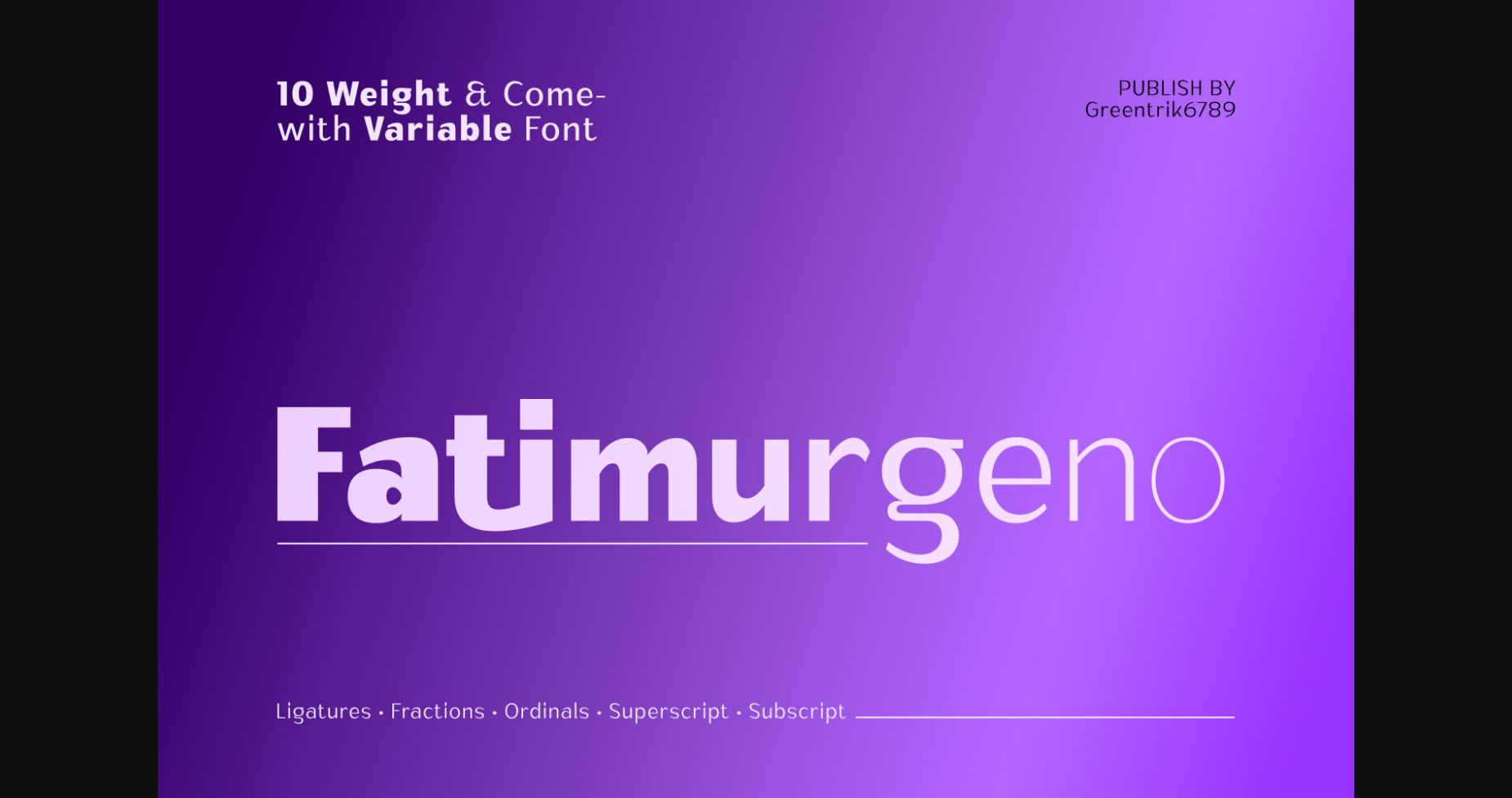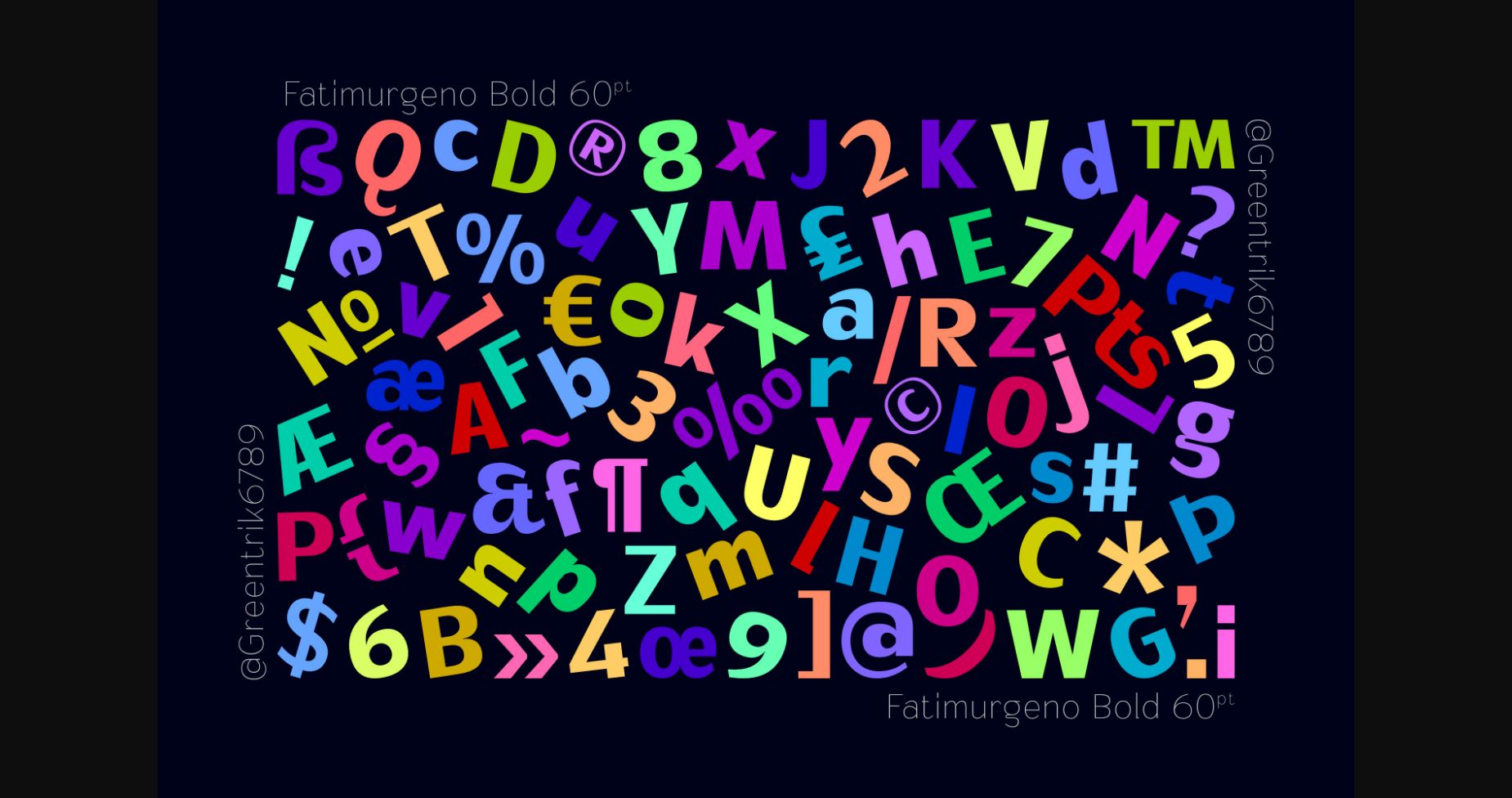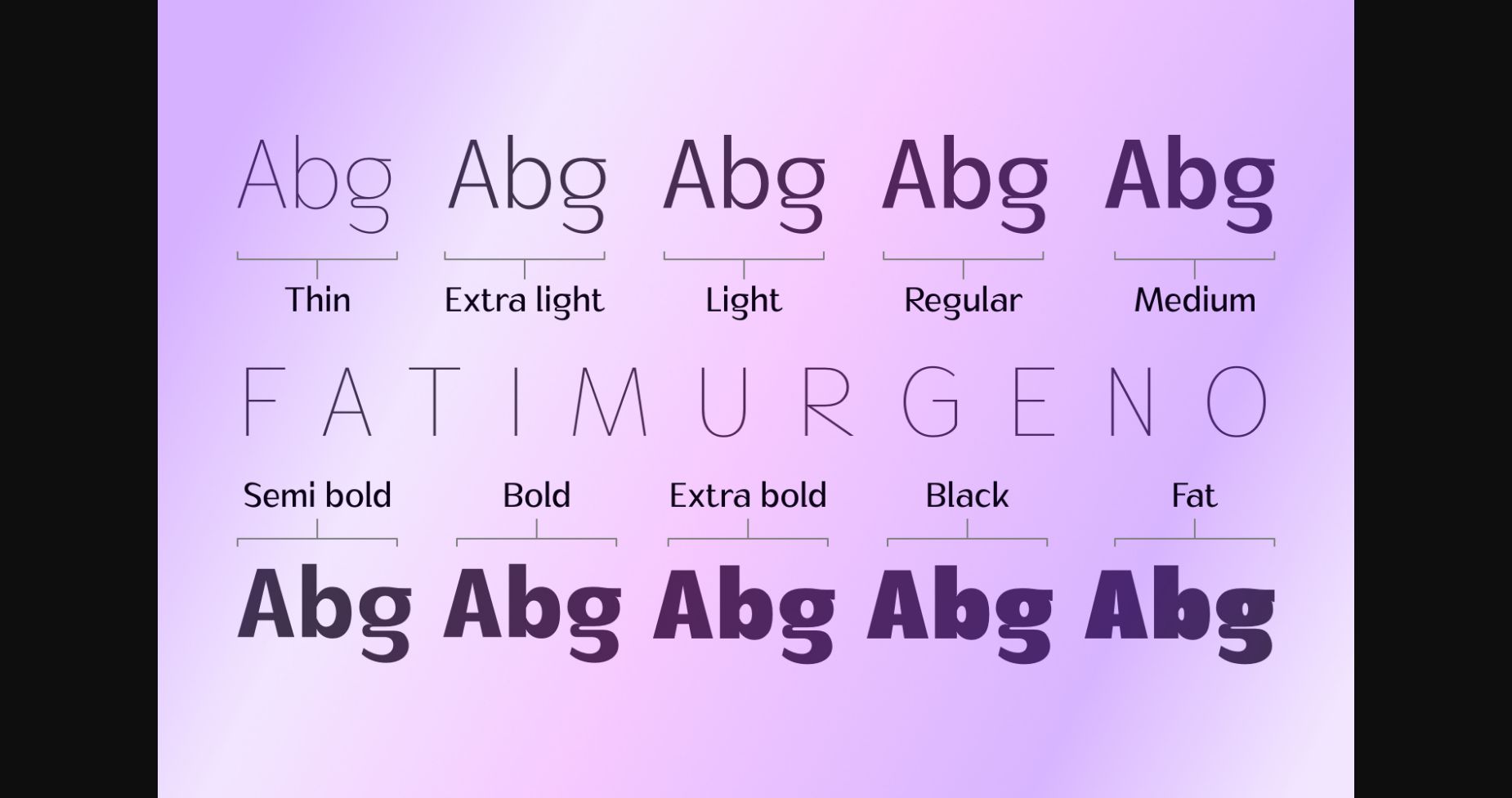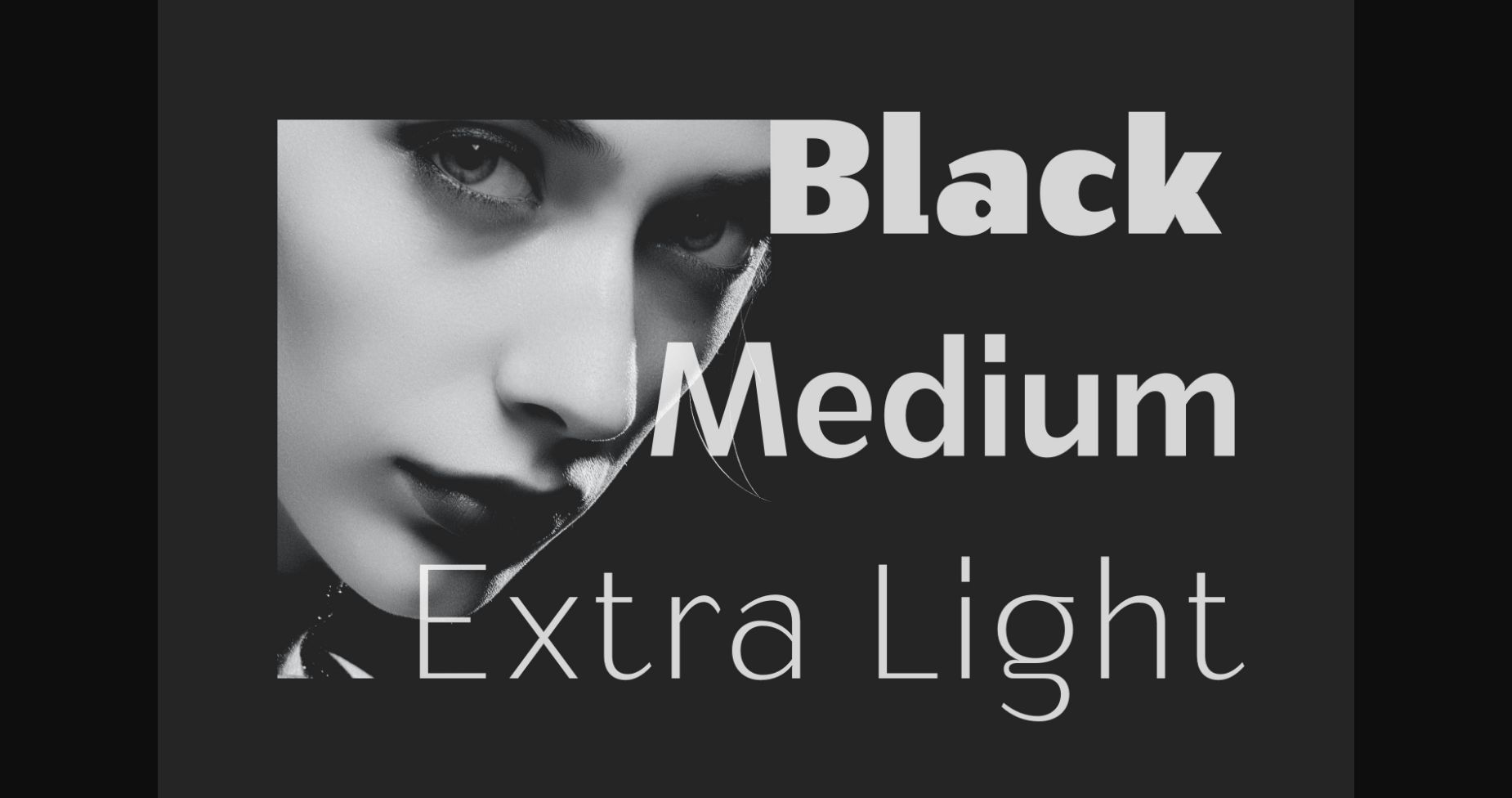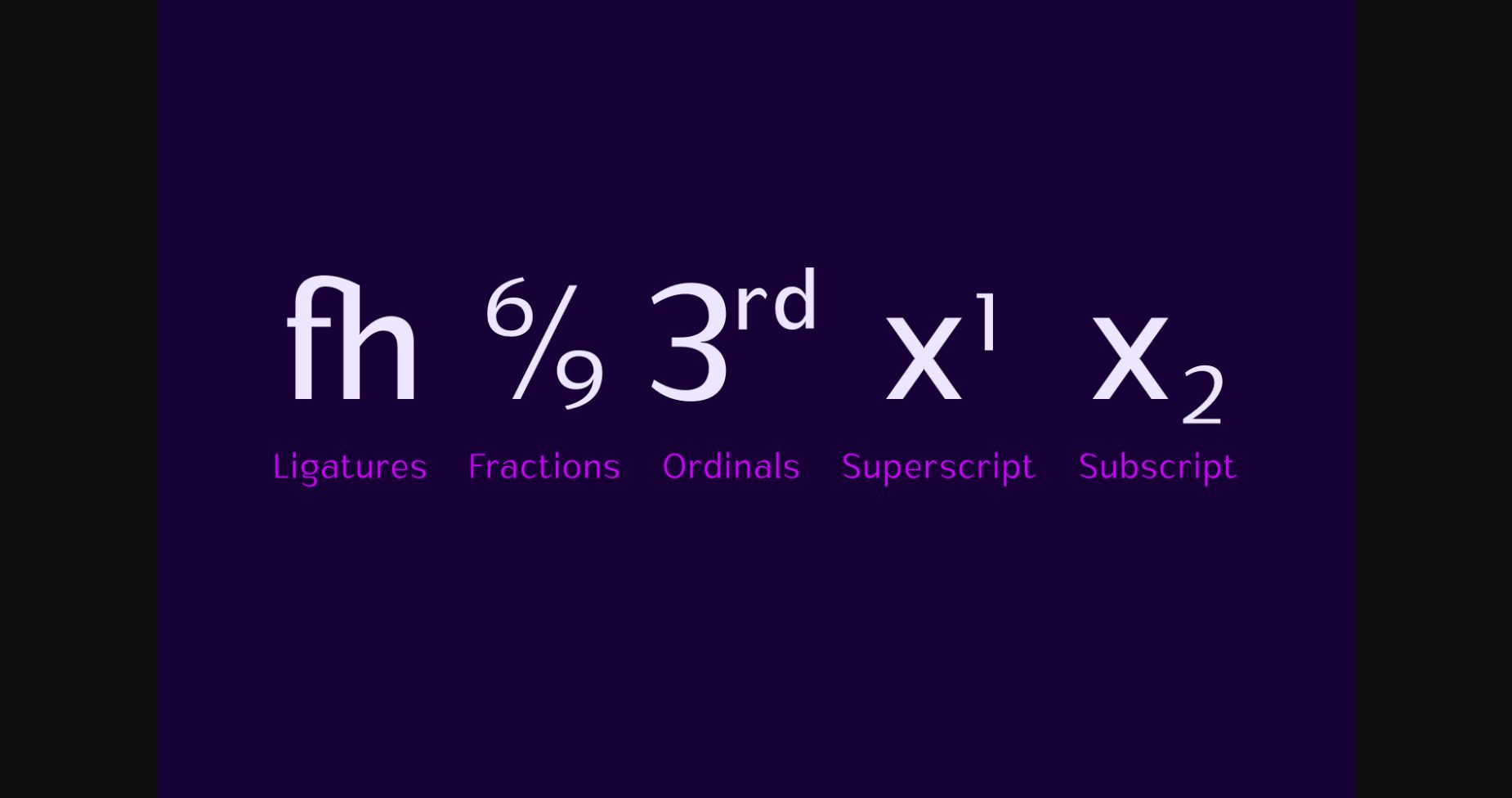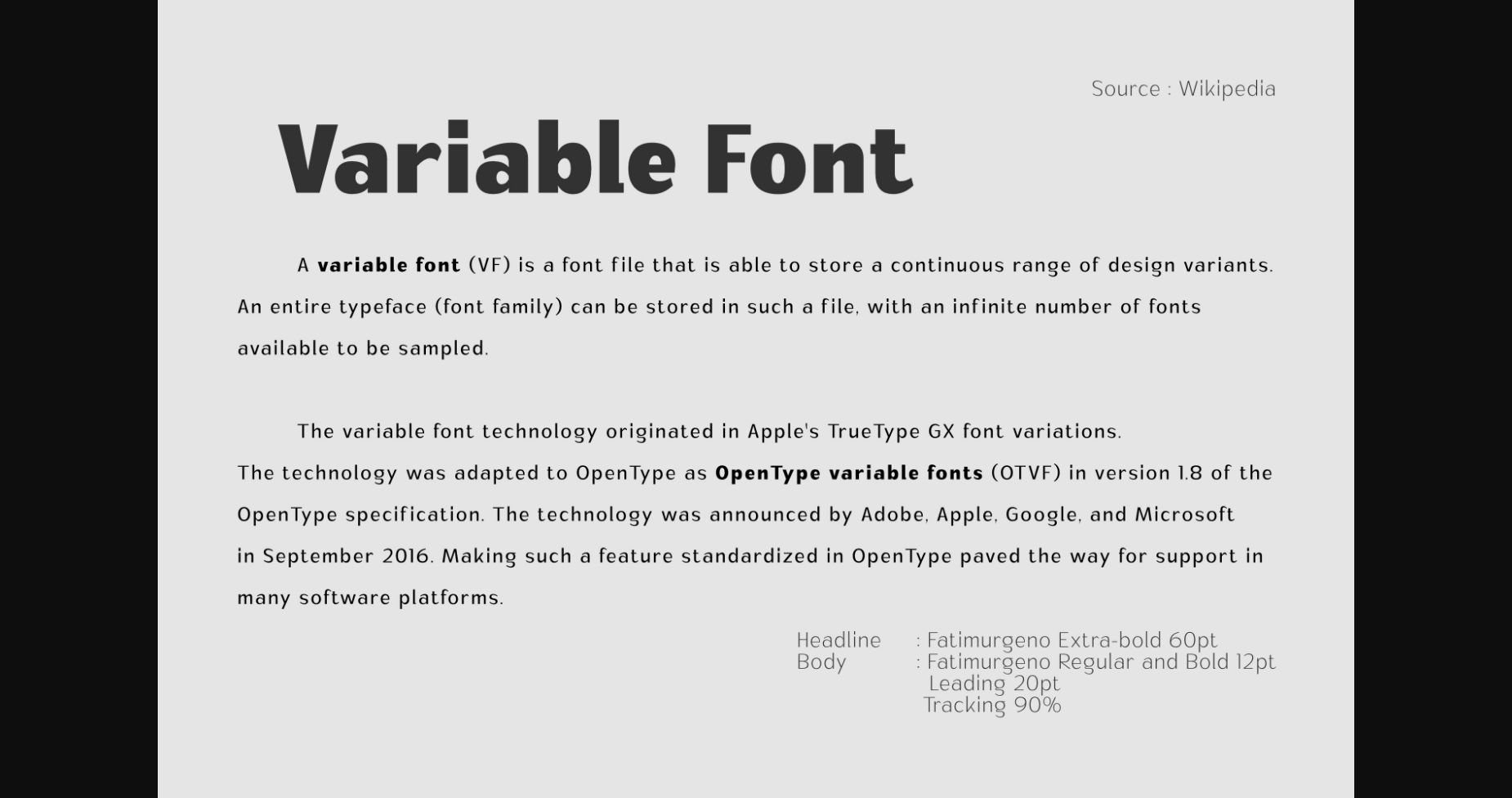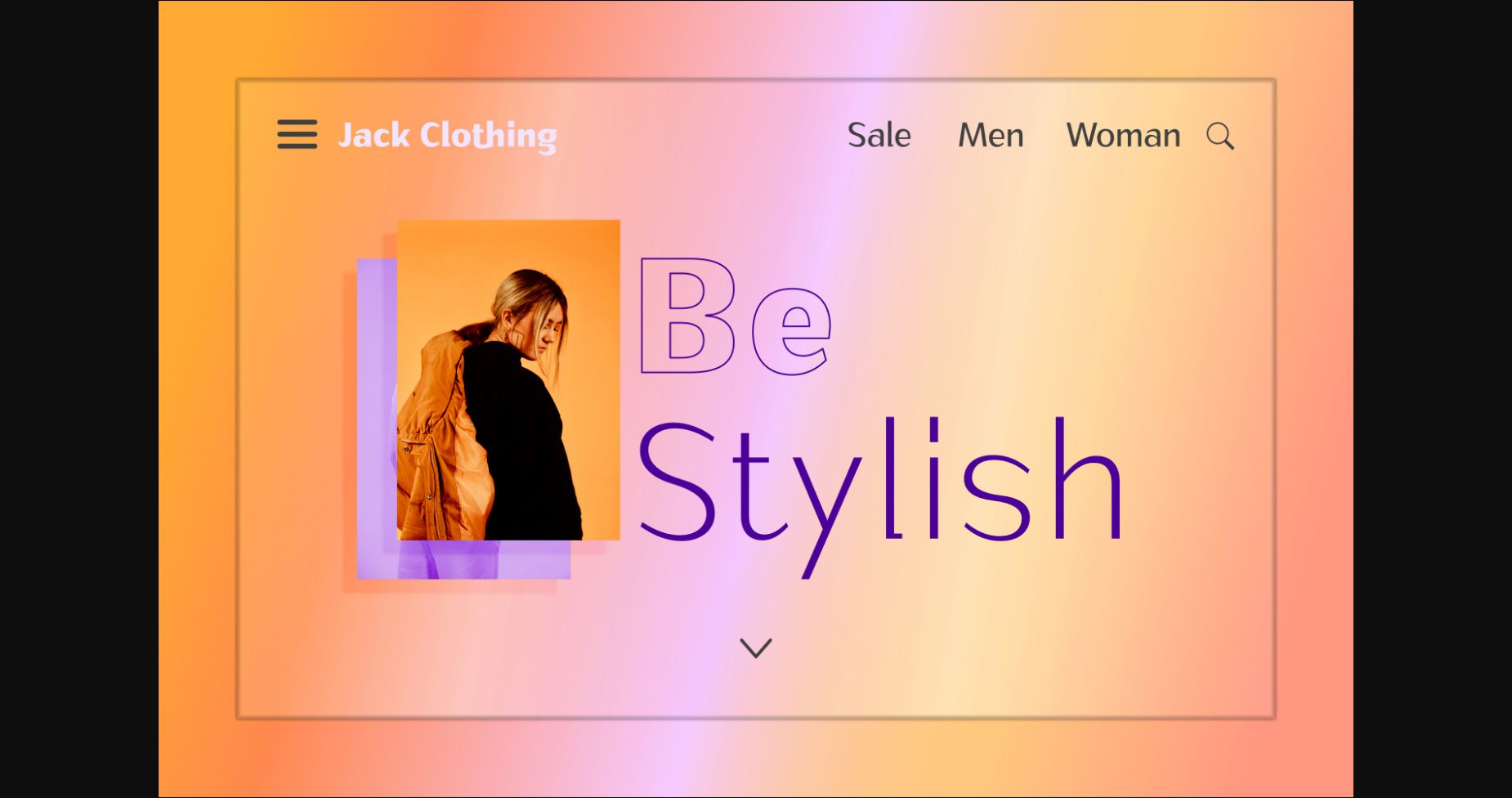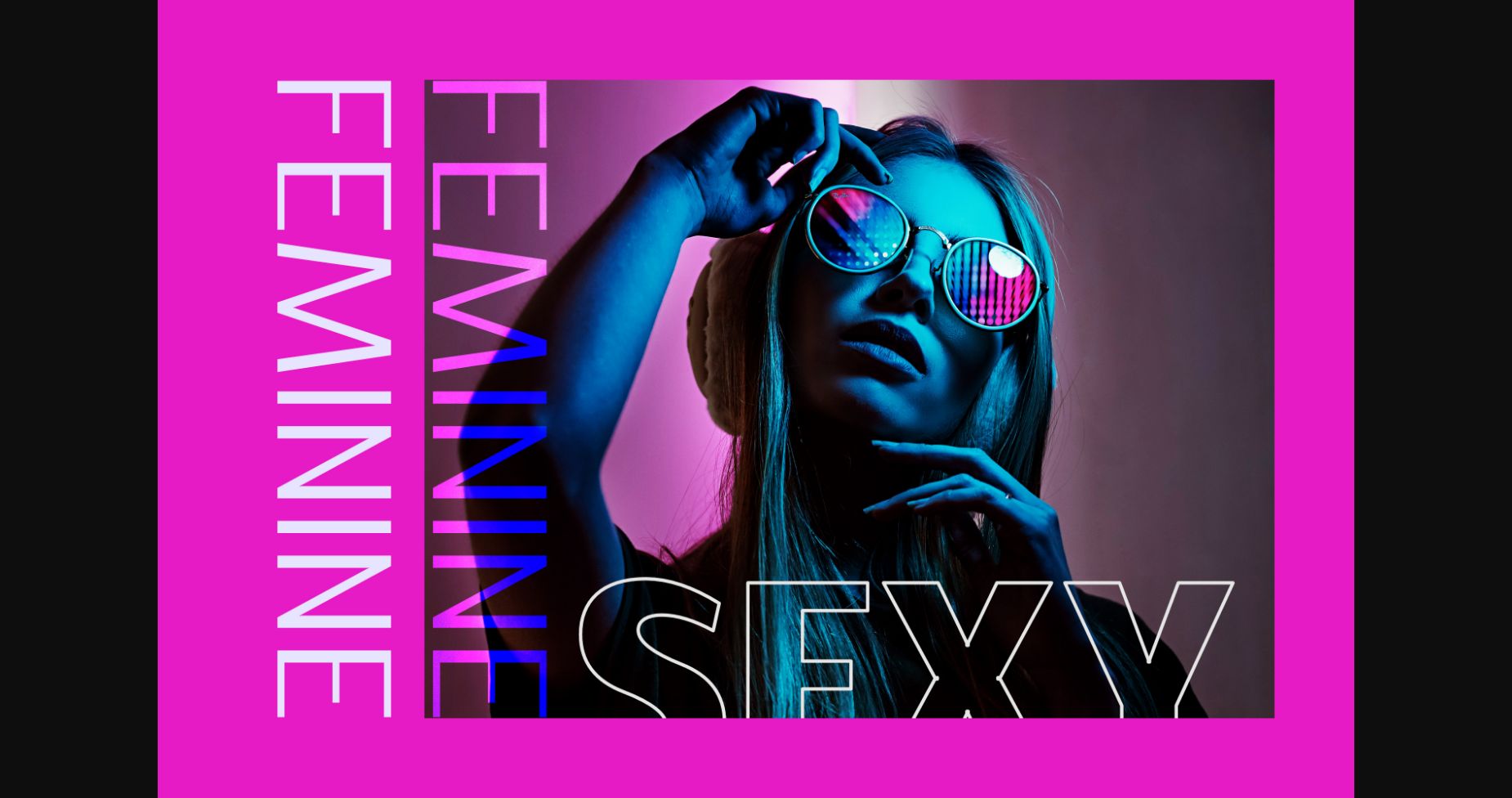
About Fatimurgeno Font
Fatimurgeno is a various sized, clean and modern looking sans serif font. Whether you’re using it for crafting, digital designing, presentations or greeting cards making, it’s perfect!